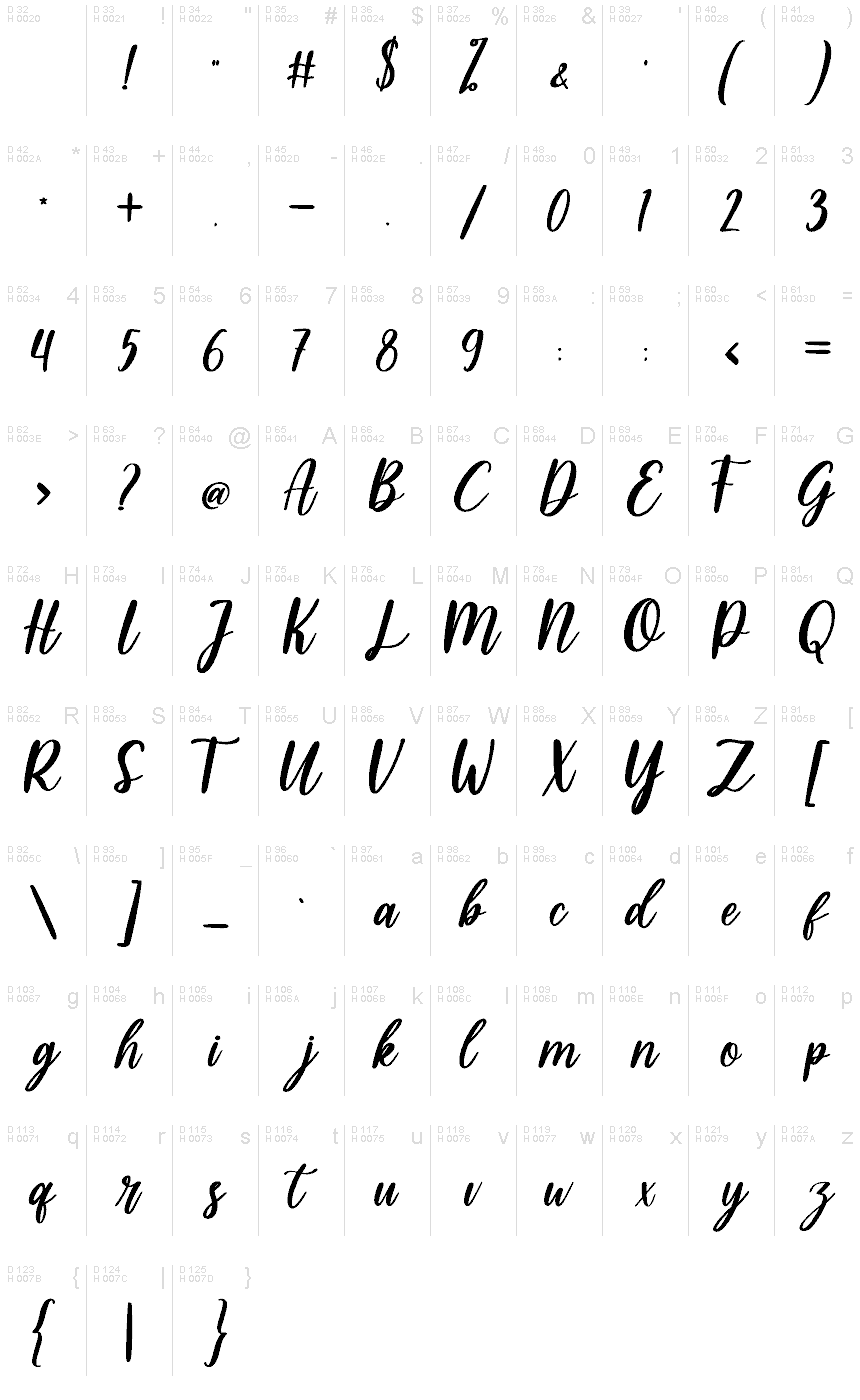
Alaska
The Alaska handwritten font offers a unique mixture of charm and sophistication. With graceful curves, elegant accents, and smooth yet bold letter forms, Alaska script font will provide a visually striking effect in any project with its unique design.
With Alaska, you will be able to elevate your projects and add a personal touch in a variety of scenarios. This versatile font can be included in wedding invitation cards, branding designs, packaging designs, business card designs, etc. So why don’t you create a striking appearance with the free Alaska font from Skiiller studio today?